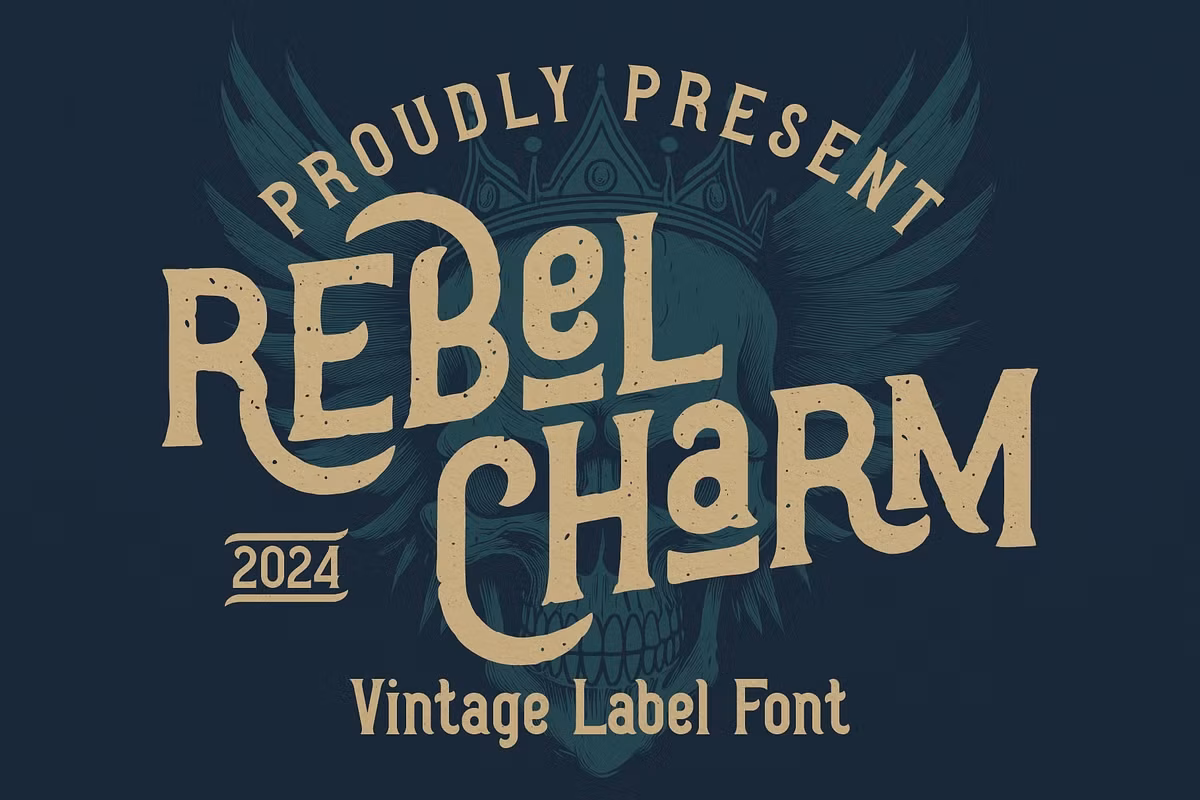
The Rebel Charm Font Free Download is a bold and dynamic typeface that combines rebellious style with a touch of elegance. With its striking letterforms and unique design, this font is perfect for creating edgy logos, posters, branding materials, and more. The Rebel Charm font brings a sense of attitude and personality to your typography, making it ideal for projects that need to stand out with a strong, modern feel. Whether you're designing for music events, streetwear brands, or creative campaigns, this font will help elevate your work with its distinctive style. Please note, for commercial use, a license purchase is required. However, you can easily download the Rebel Charm Font Free Download for free for personal use and explore its versatility. Download the Rebel Charm Font Free Download today and add a bold, charismatic touch to your designs.